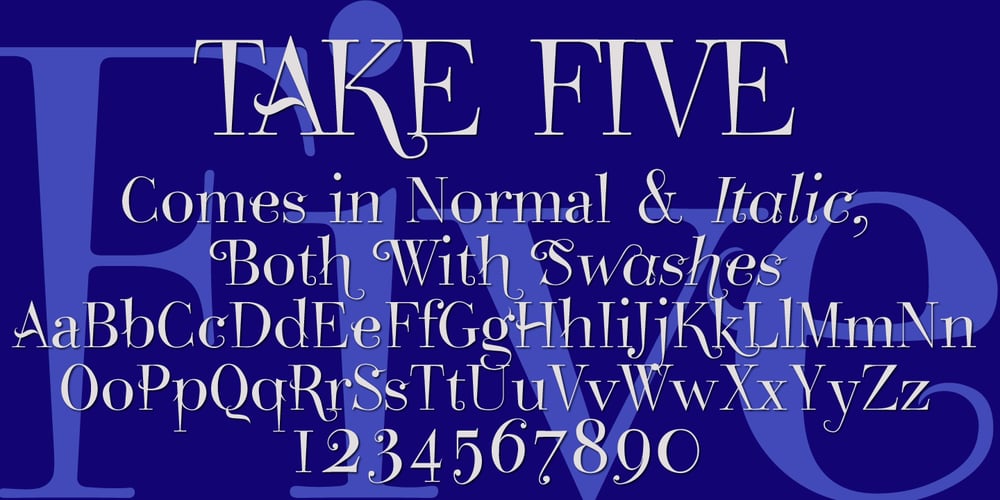
Take Five
Take Five font
Take Five Font Family was designed by Gert Wiescher and published by Wiescher Design. Take Five contains 4 styles and family package options. Take Five is a very jazzy typeface. It is more Swing than Bebop but it also evokes memories of the Cool Jazz era. Take Five can be used for jazzy covers or children’s birthdays as well as jumble sales leaflets. Take Five is pretty versatile; no wonder – it is a descendant of my Bodoni Classic typeface family. Your jazzy designer Gert Wiescher